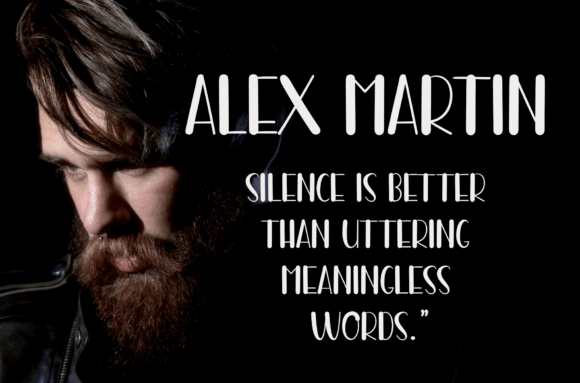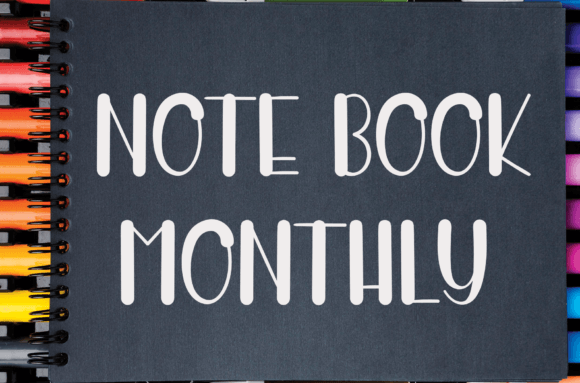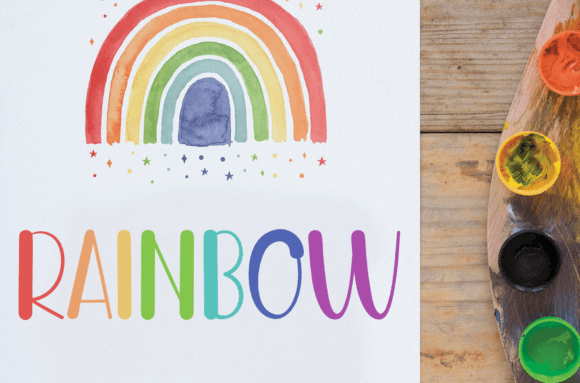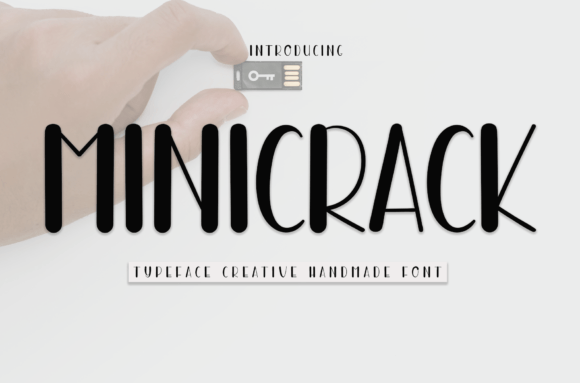
Introduction to Minicrack Font
Minicrack is a sweet and friendly handwritten font.
Fresh and neat, this font is ideal for writing wedding invitations, cards, or any other design that might need a fun touch .